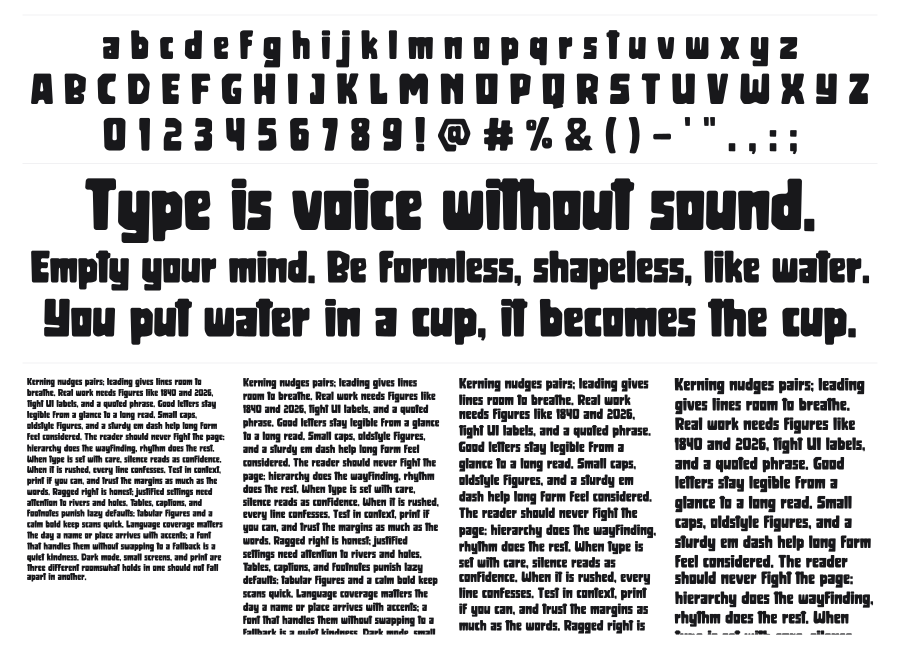
Blackhood
by Weape Studio · Website
Blackhood is a super-heavy retro display font with thick, rounded strokes and a distinctly 1970s groovy character. The massive weight and tightly pinched counters give it an almost inflated, blocky energy that reads instantly at large sizes. It suits posters, album covers, and branding that needs a bold, fun-loving presence.